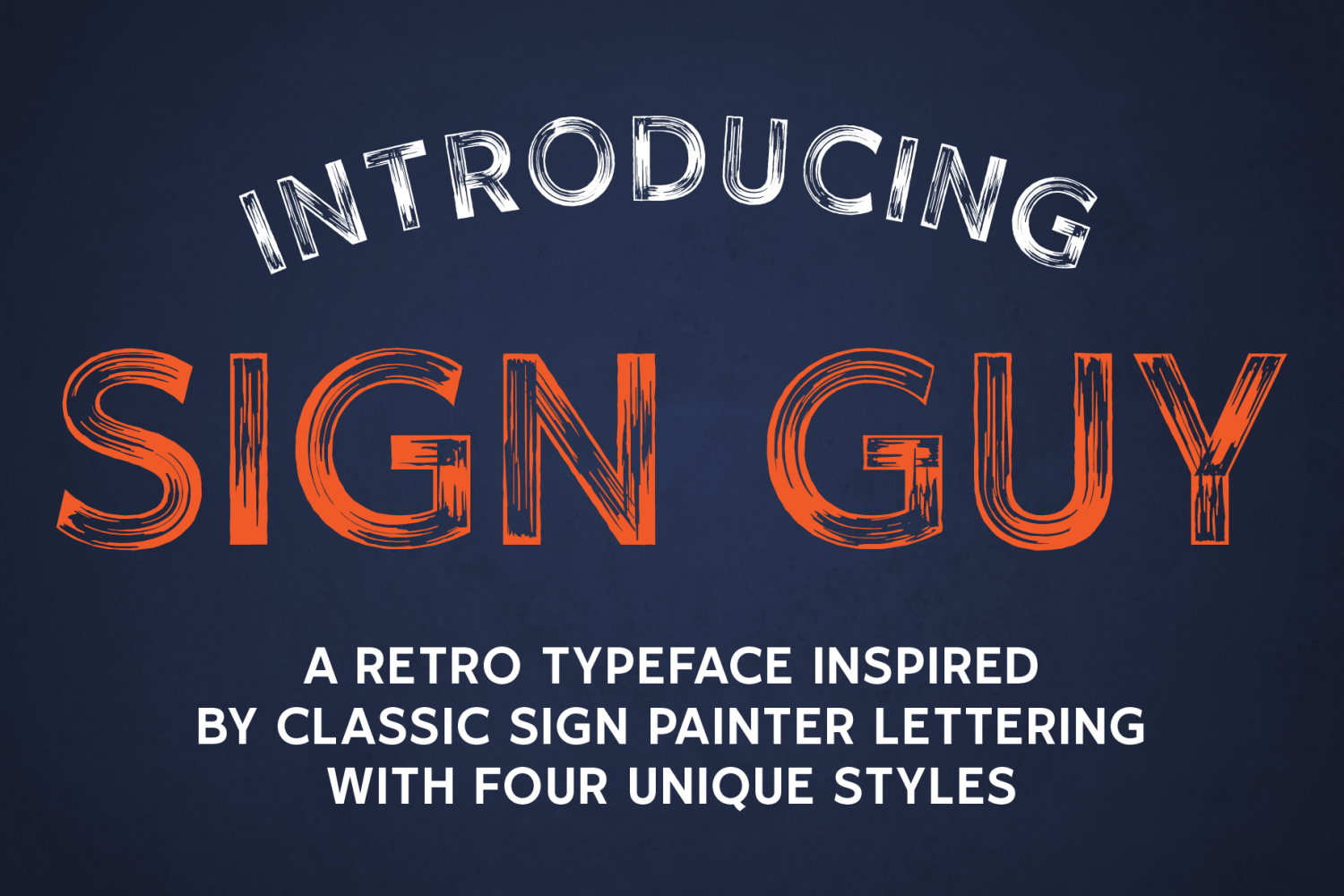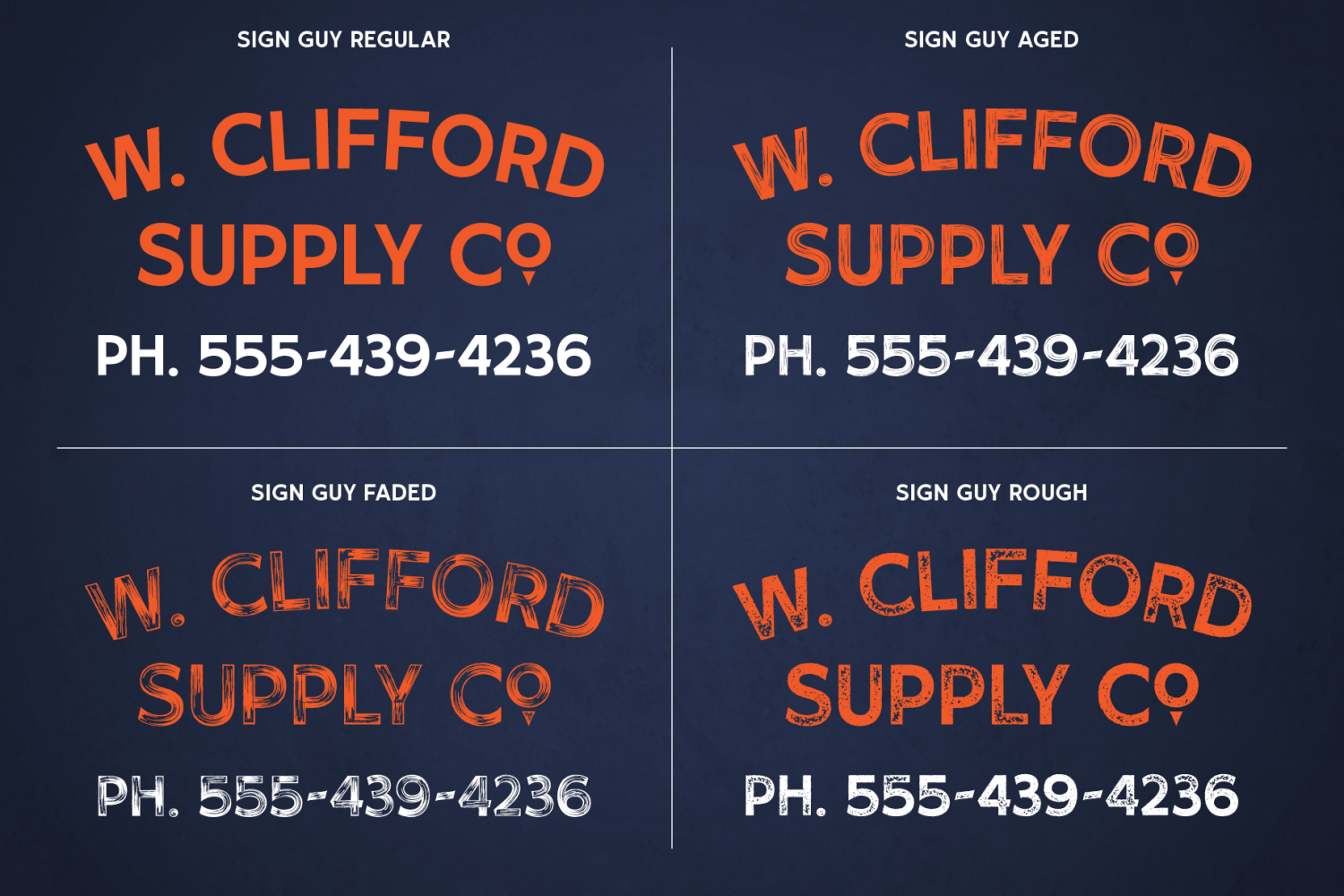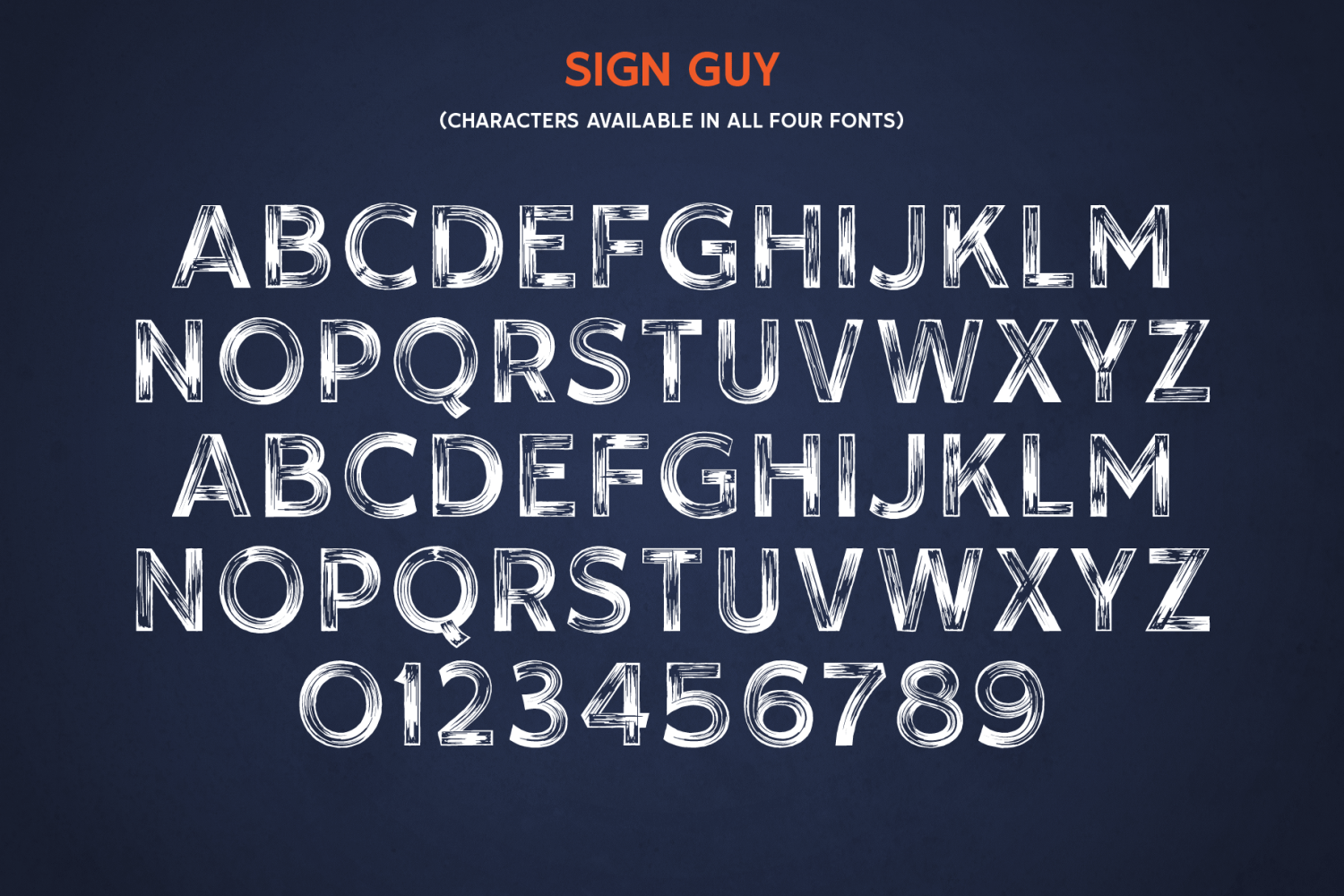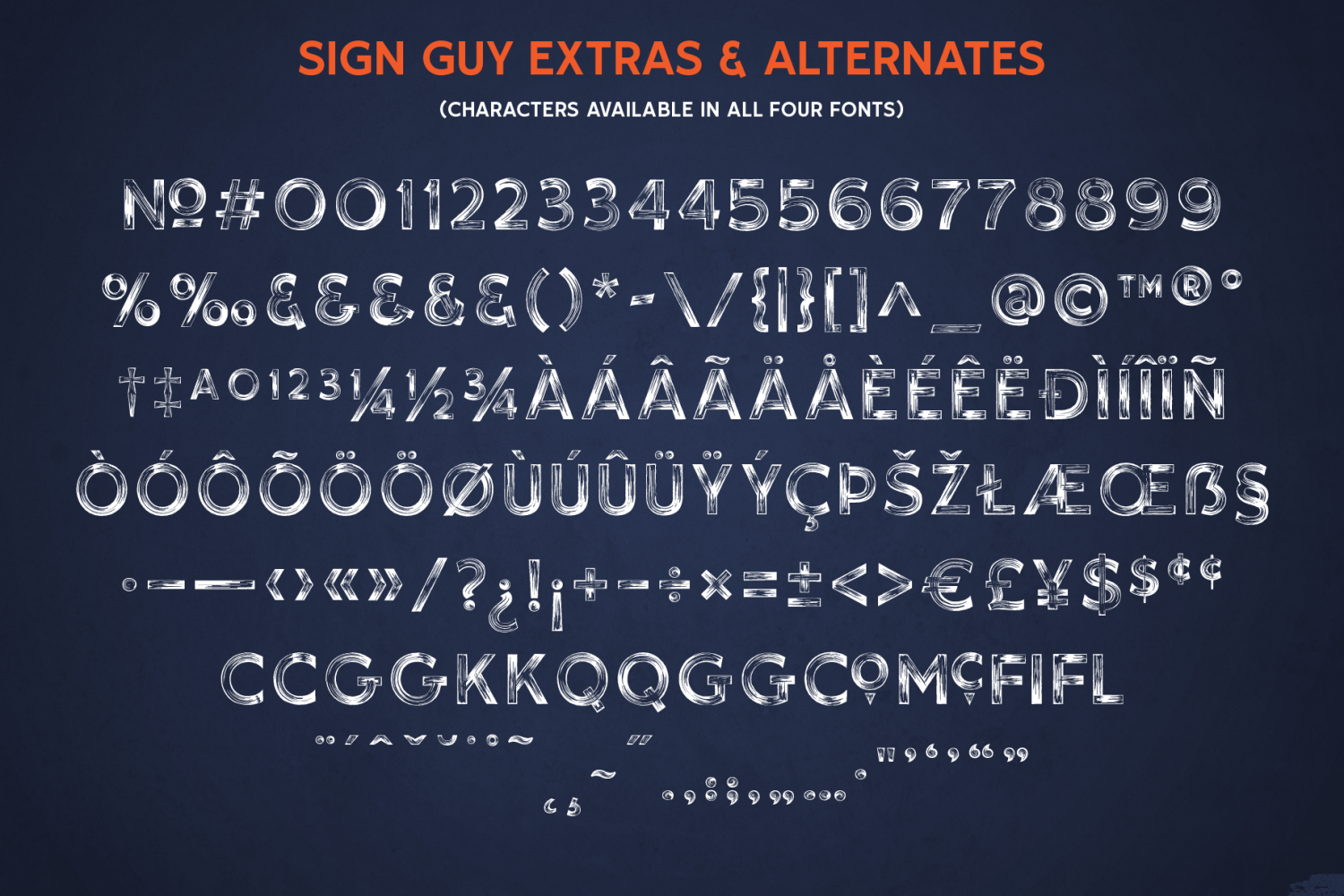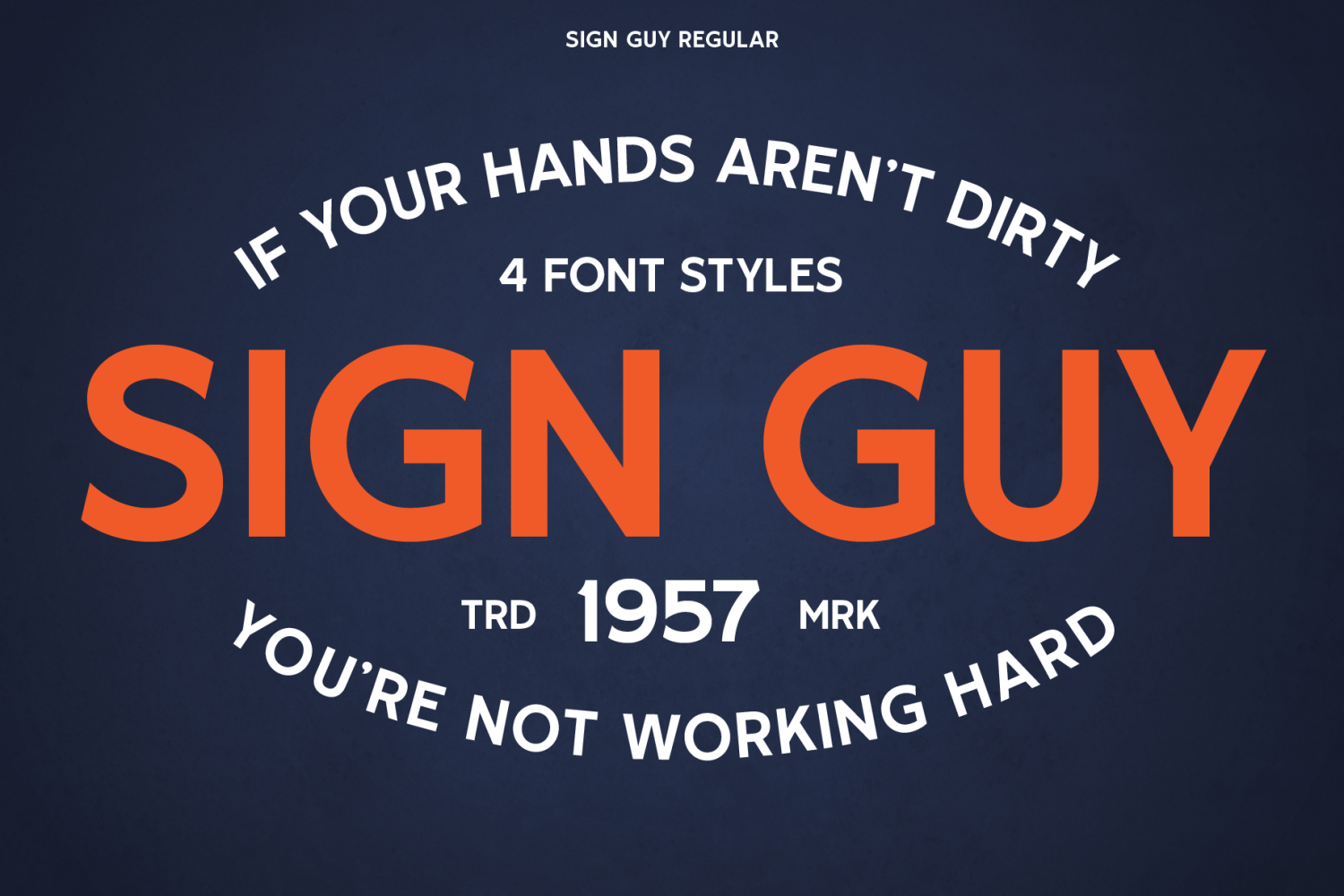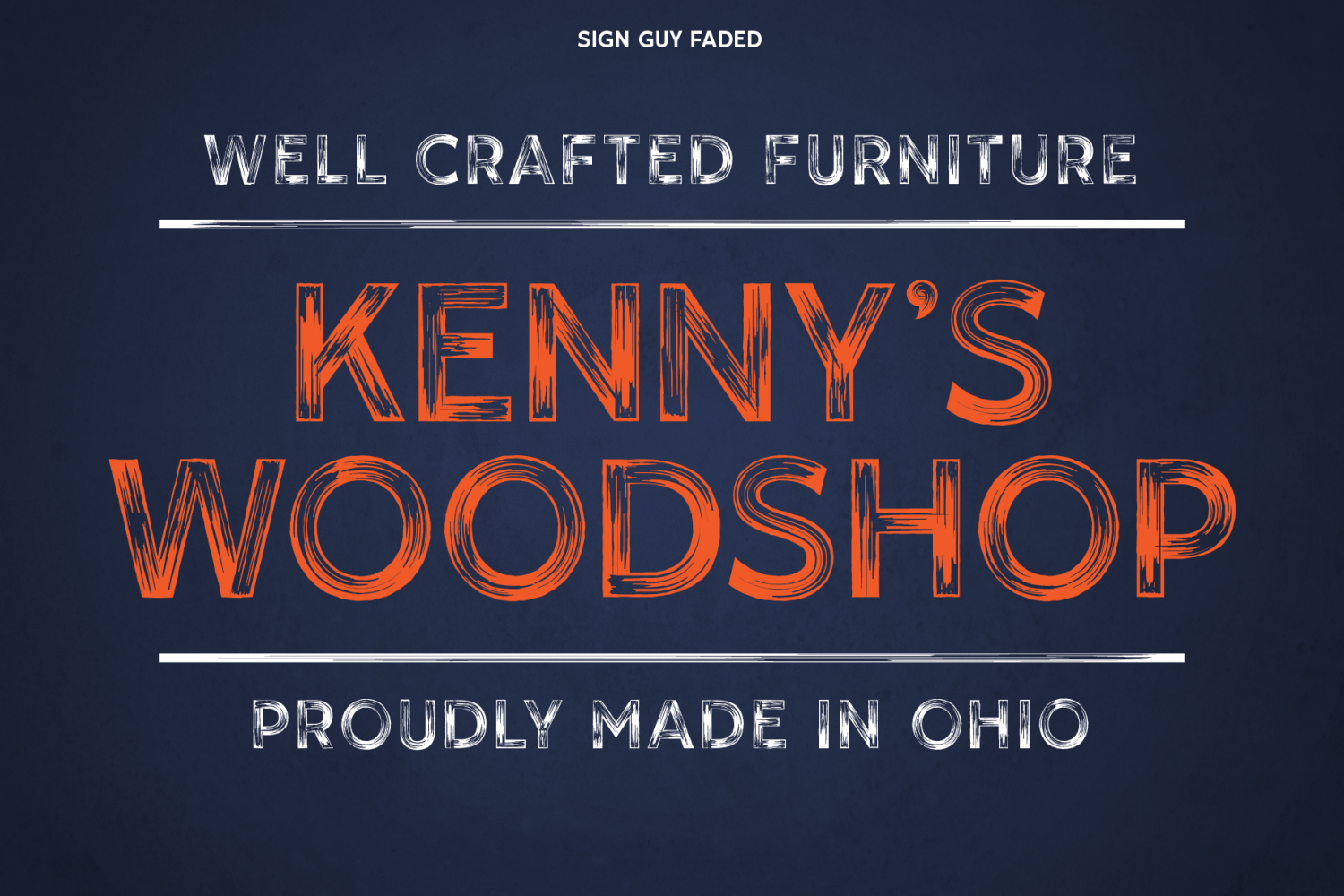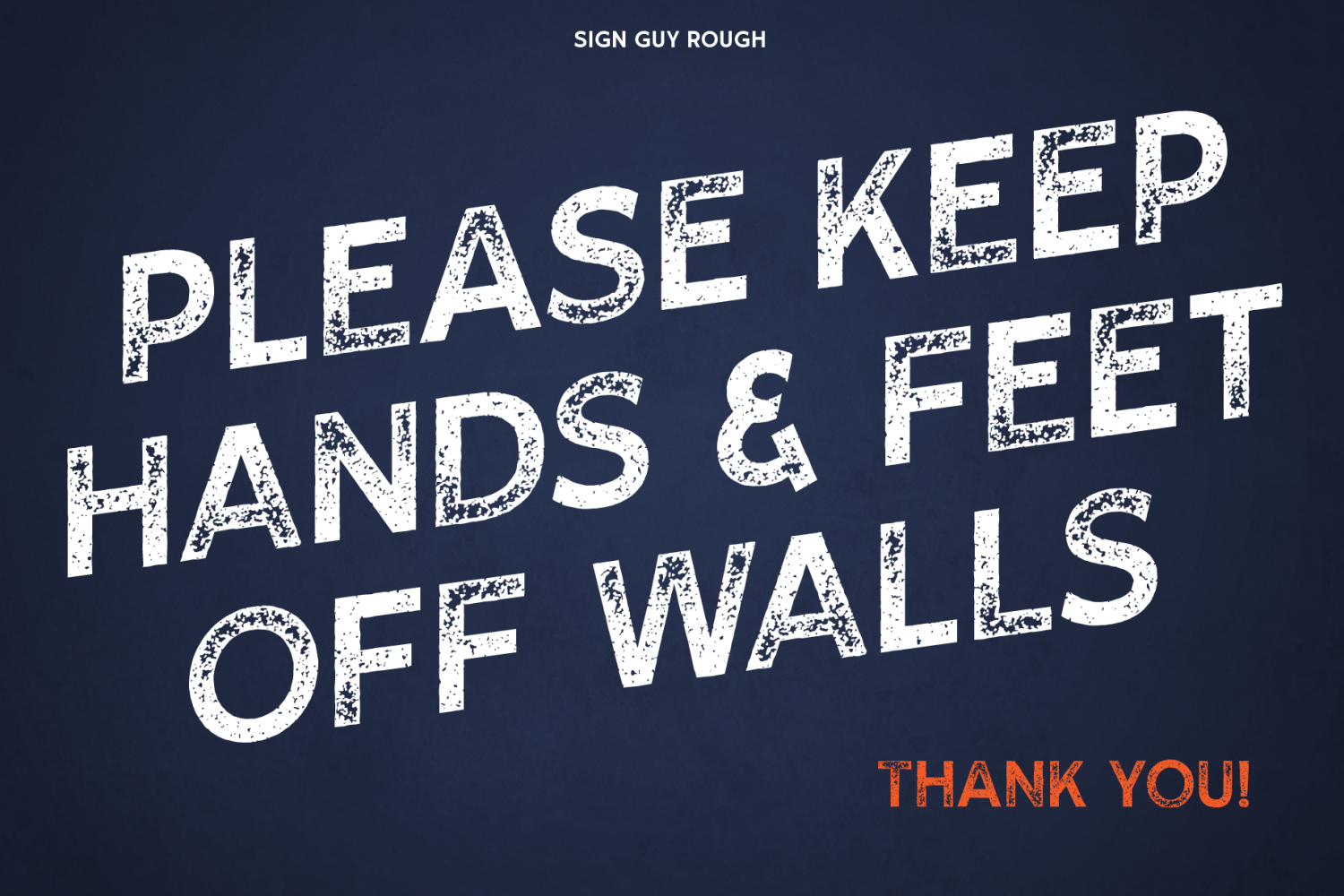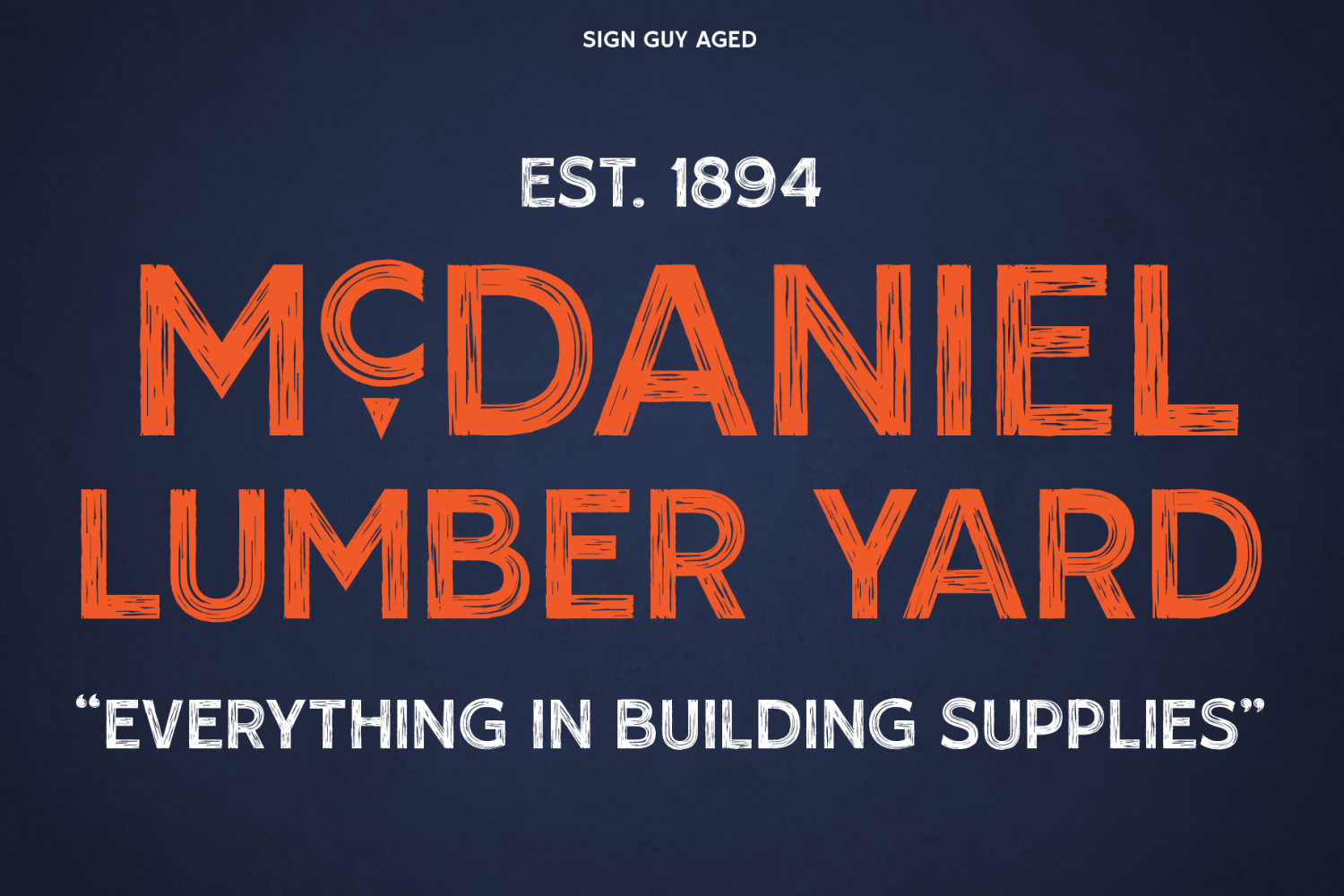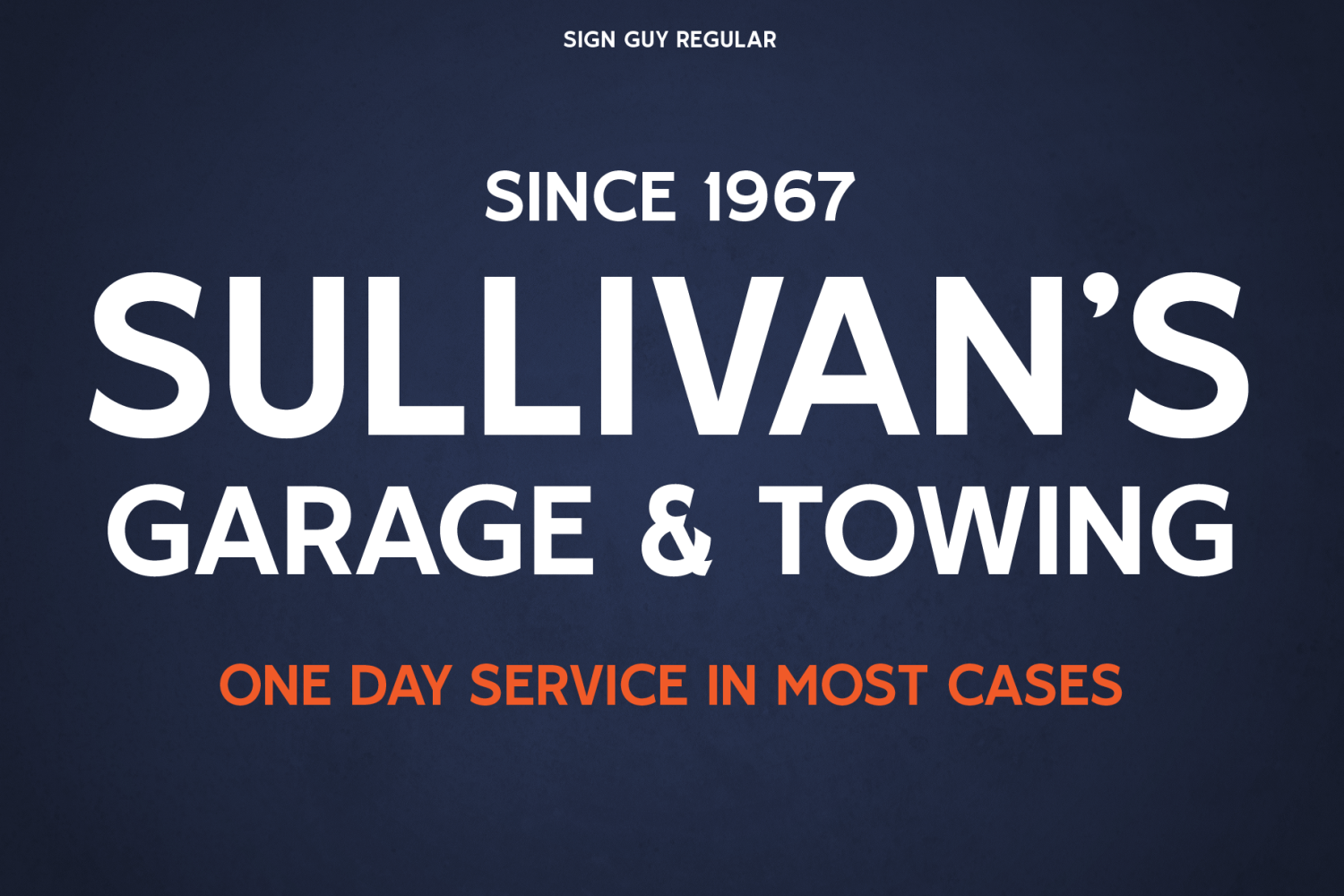
Sign Guy
Sign Guy is a classic sign painter's typeface based on Speedball's Showcard Single Stroke Gothic. It features four different fonts, with three using varying levels of distressing to mimic the weathered and worn look you might see on an old shop truck or outdoor sign. Sign Guy includes variations between upper and lowercase letters and numerals. Utilizing opentype features each font automatically adjusts double characters and triple numbers to create a more natural aged look. Sign Guy effortlessly recreates early Americana hand-painted sign lettering. This easy to read style is great for creating everything from vintage look signage to more modern designs.
- Four font set (Regular, Aged, Faded and Rough)
- Basic Western European characters with accents and punctuation
- Opentype features to automatically switch double letters and triple numbers to add to the authentic look of naturally aged type